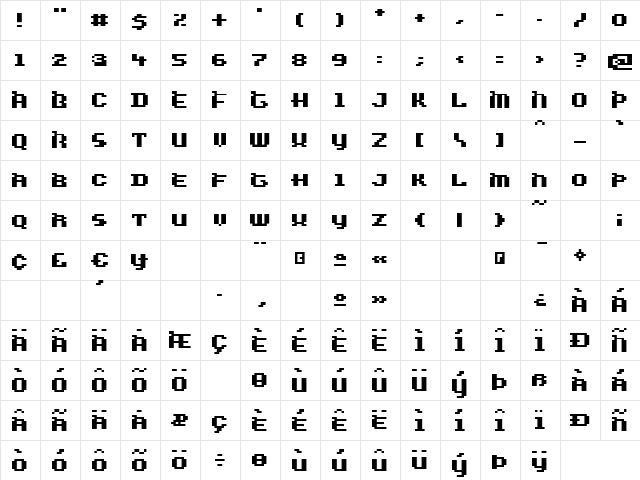
WiredBold Regular
Design Context for WiredBold Typeface
WiredBold takes a measured approach to typography — its balanced proportions and neutral character make it a reliable workhorse for both digital and print work. Its bold stroke weight gives it real presence on the page.